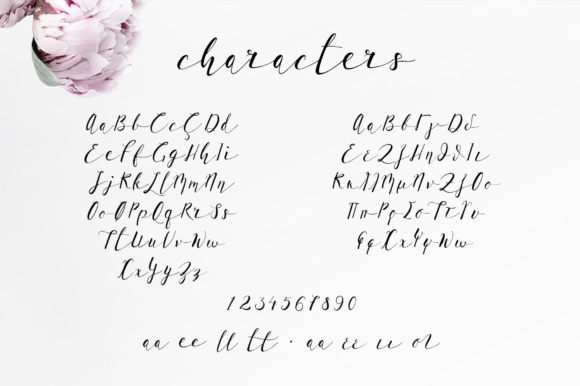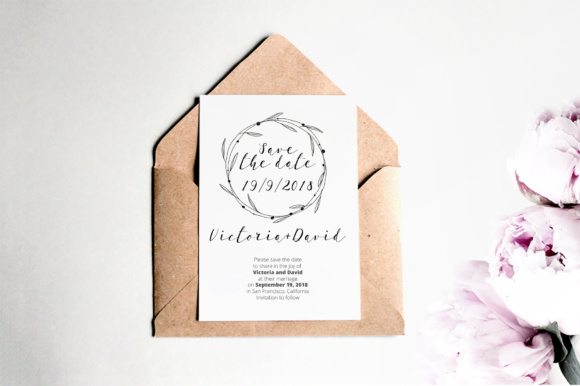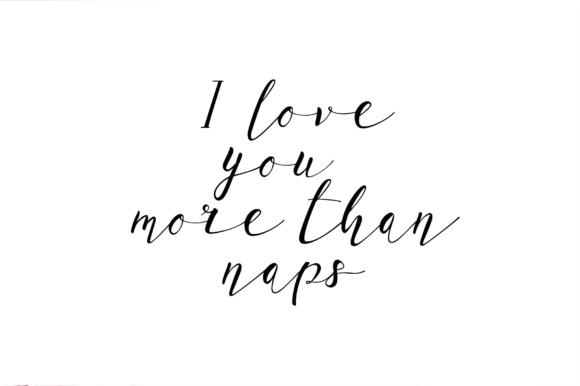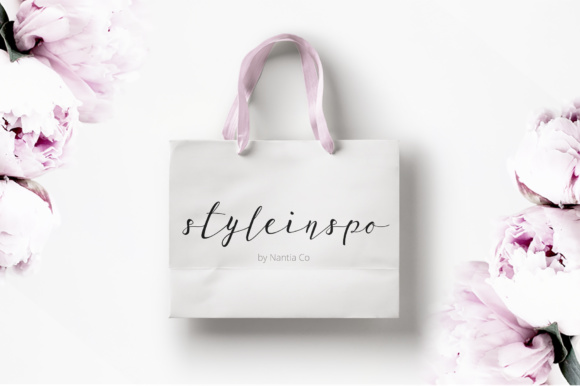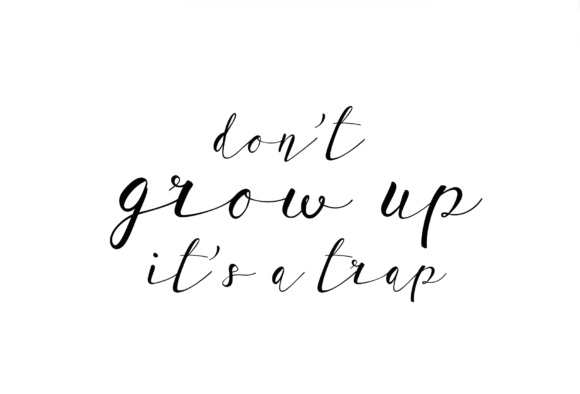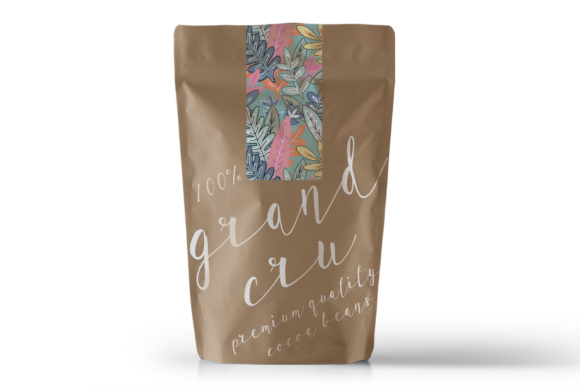
Introduction to Lil’Baby Script Font
Remember the moment you found the perfect font for your dreamy wedding invitation or a romantic social media post? The feeling of excitement and satisfaction is what drives designers to constantly search for that one special design resource. For those who have been on the hunt, we’re excited to introduce you to the Lil’Baby Script Font, a high-quality calligraphy typeface that’s sure to elevate your creative project.
What sets Lil’Baby Script Font apart is its unique blend of modern and classic elements, making it perfect for a wide range of design applications. From wedding invitations to social media quotes, this beautiful script font is a valuable addition to any designer’s toolkit. With its transparent background and free download option, it’s easy to incorporate into your next project. Whether you’re a seasoned pro or just starting out, the Lil’Baby Script Font is a must-have design resource that’s sure to bring a touch of elegance to your work.
Key Features of Lil’Baby Script Font
- Lil’Baby Script Font is a high-quality, free download design resource ideal for creative projects requiring a unique, handwritten touch.
- The font features a transparent background, allowing for seamless integration into various design elements and backgrounds.
- This script font is designed to be highly legible, with a clear and easy-to-read character set, making it perfect for invitations, quotes, and other creative projects.
- The font size is scalable, allowing designers to adjust the font size to suit their specific design needs, from small to large format designs.
- Lil’Baby Script Font is suitable for a wide range of resolutions, including low-resolution designs, ensuring it remains clear and readable even at smaller sizes.
- This unique font features a range of creative flourishes and swashes, adding an extra touch of personality to any design project.
Honest Review: Lil’Baby Script Font
I recently had the chance to work with the Lil’Baby Script Font, and I must say, it’s been a delightful addition to my design resources. This free download has been a game-changer for my creative projects.
- High-quality design: The Lil’Baby Script Font is beautifully crafted, making it perfect for a variety of design applications.
- Easy to customize: This font is incredibly versatile and can be easily customized to fit any design style.
- Transparent background: The transparent background option makes it easy to layer this font over other design elements.
However, I did encounter a few limitations while using the Lil’Baby Script Font.
- Limited font size options: The font size options are somewhat limited, which can make it difficult to use in certain design contexts.
- No bold or italic variations: Unfortunately, the Lil’Baby Script Font does not offer bold or italic variations, which can make it difficult to create emphasis in text.
Overall, the Lil’Baby Script Font is a great addition to any design resource library. While it has its limitations, the high-quality design and versatility make it a valuable asset for any creative project.
Tips for Getting the Most Out of Lil’Baby Script Font
For a high-quality design, use the Lil’Baby Script Font in conjunction with a transparent background to create a beautiful, elegant look. Experiment with different font sizes and colors to add depth and visual interest to your project.
Common Use Cases for Lil’Baby Script Font
The Lil’Baby Script Font is perfect for creative projects such as wedding invitations, baby shower invitations, and other special occasion designs. Its elegant, cursive style makes it a great choice for design resources that require a touch of sophistication and whimsy.